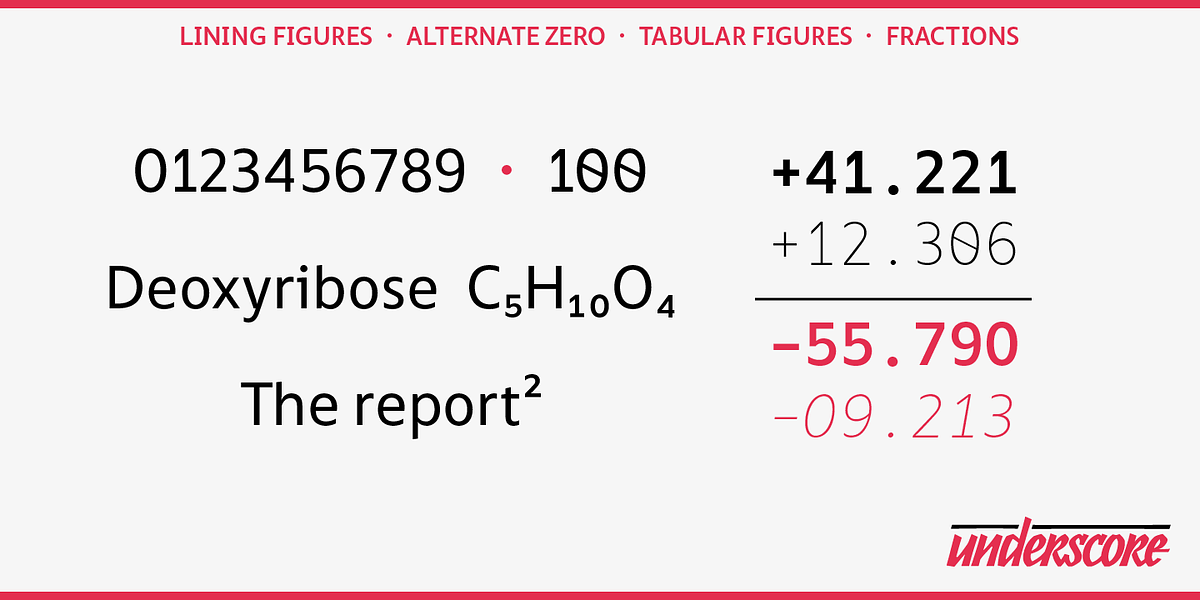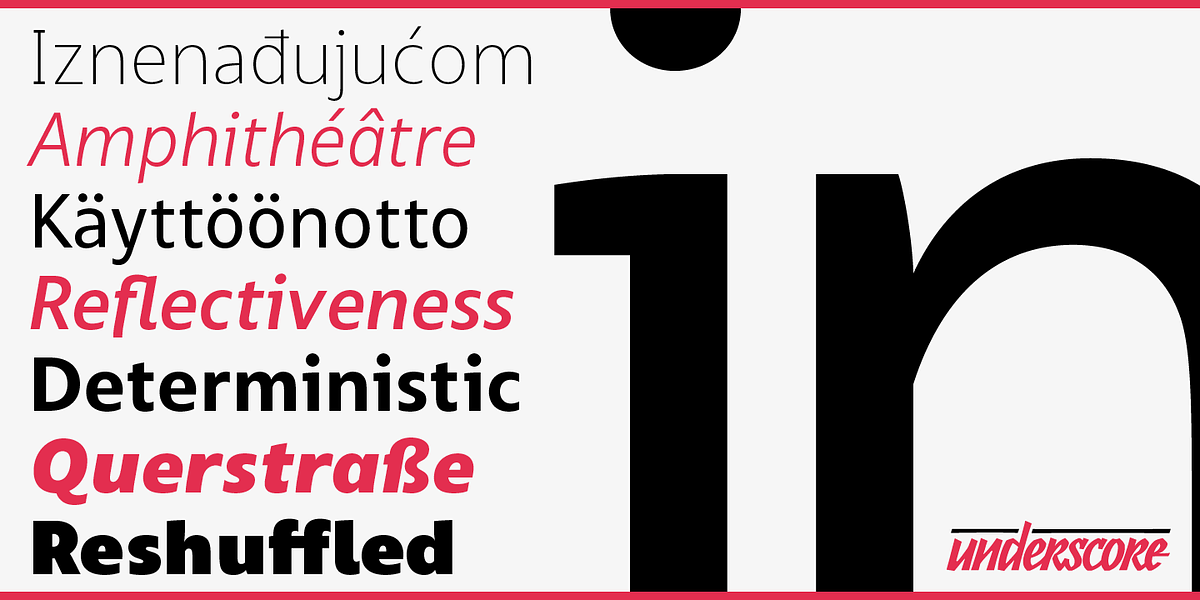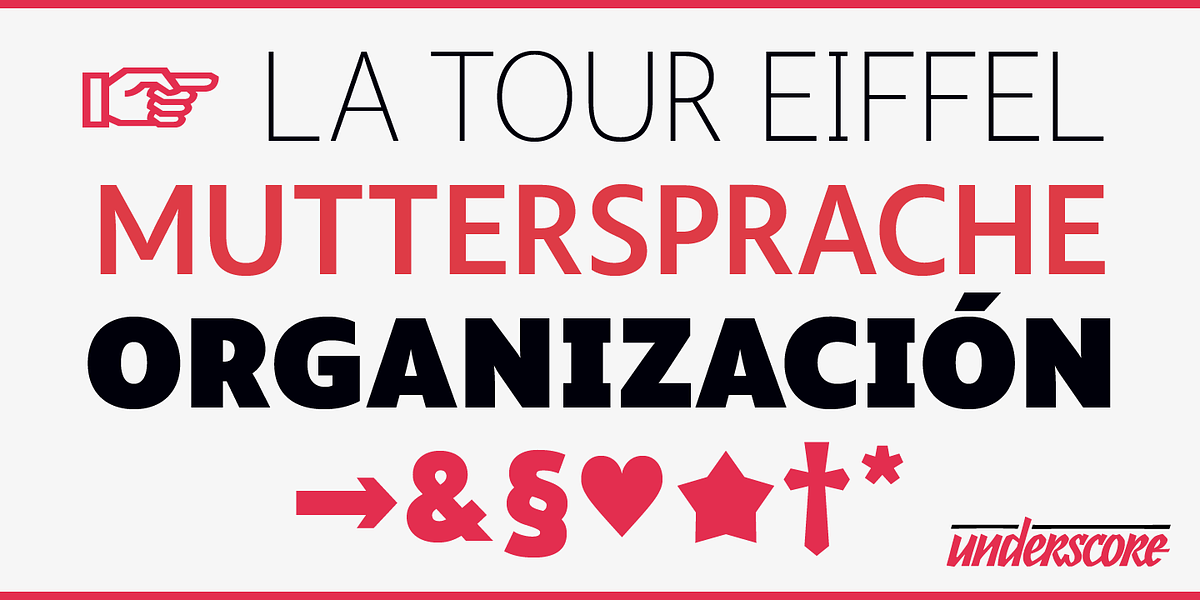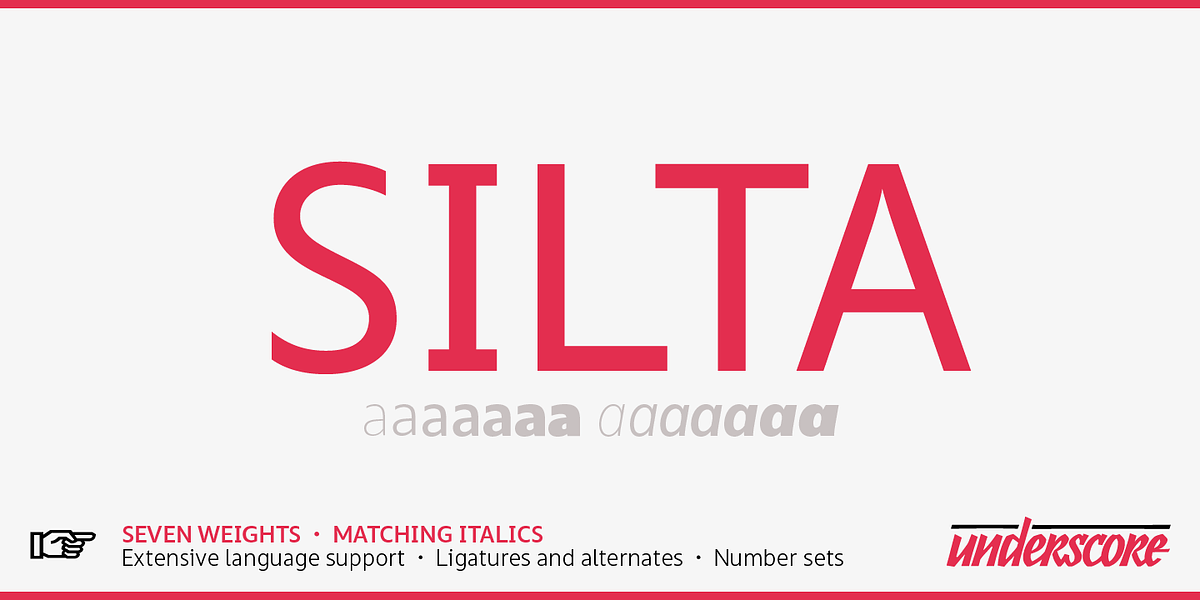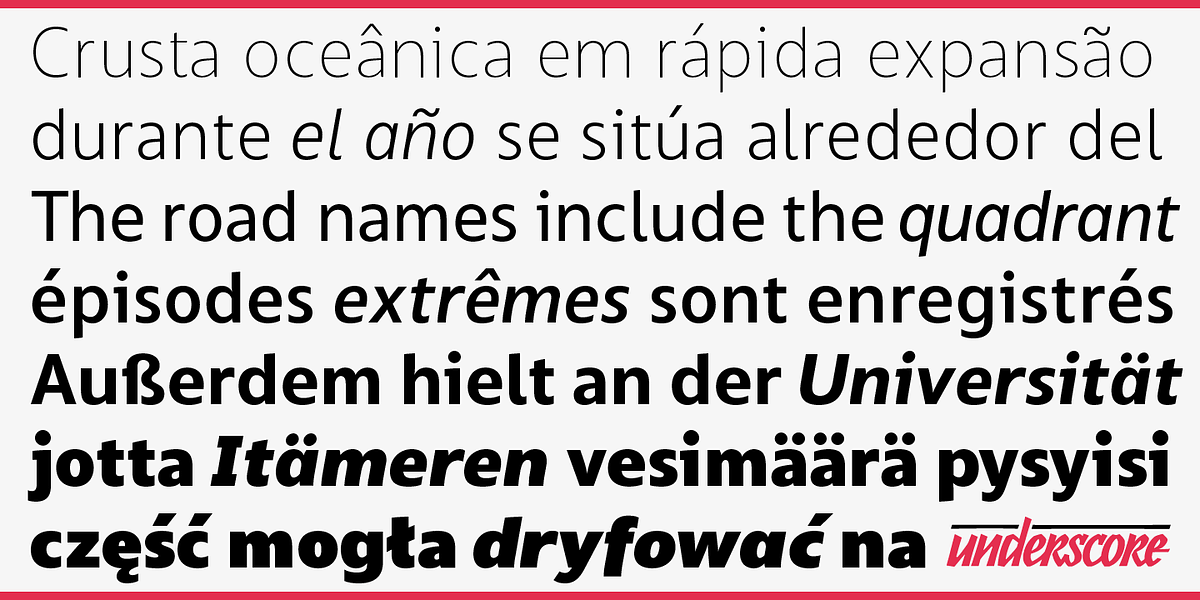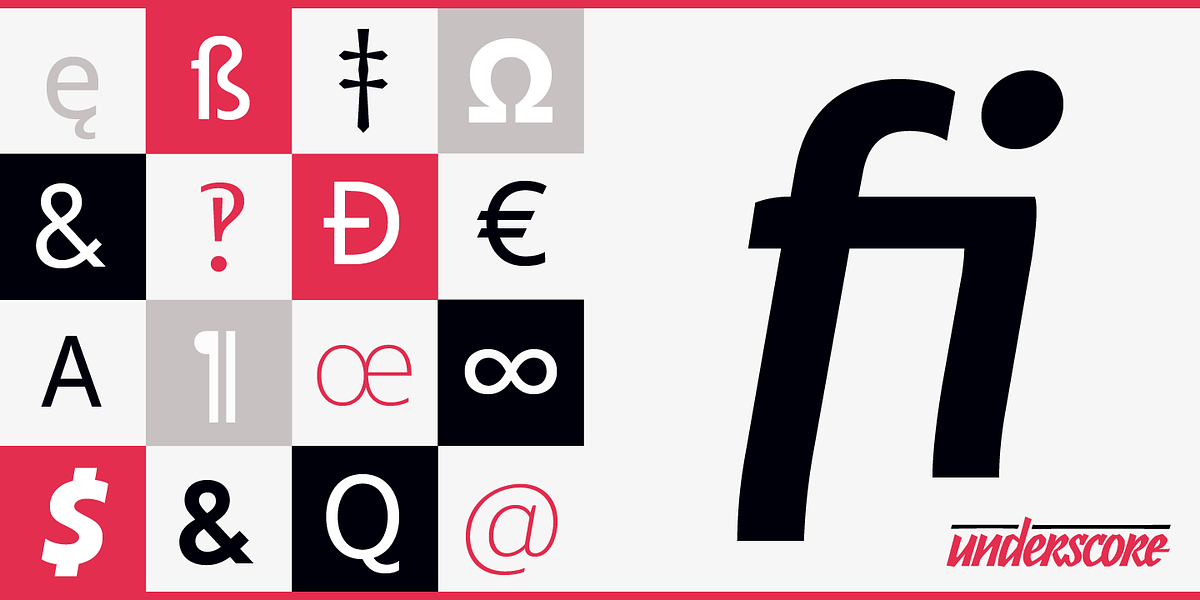
Silta
Silta is a humanist sans serif font designed specifically for interface typography and screen readability. Its design emphasizes sharp details where needed and flexibility in other areas, creating a friendly tone. The font includes seven weights with matching italics, allowing for the creation of complex typographic hierarchies. Silta offers wide language support, including extended Latin, symbols, and various number sets. It also features OpenType functionality.